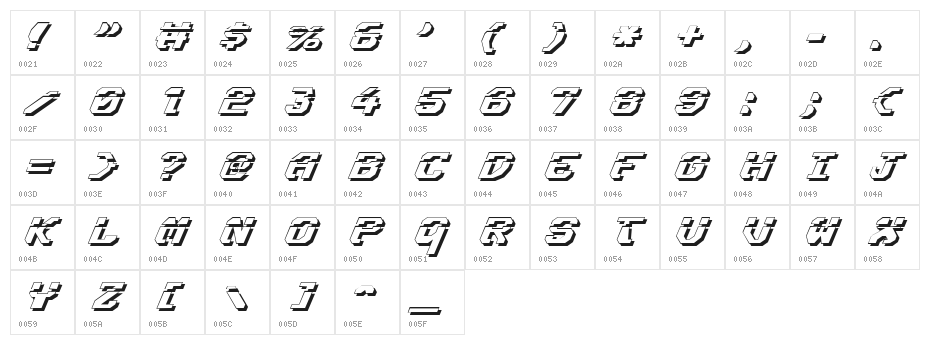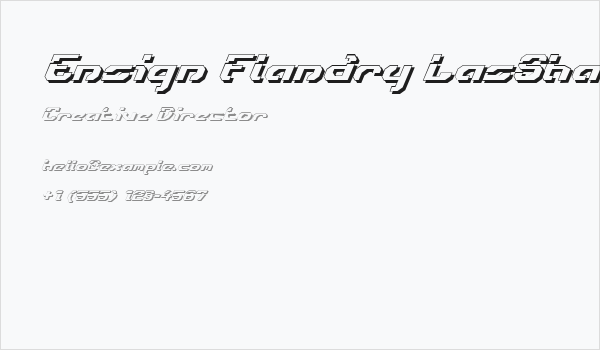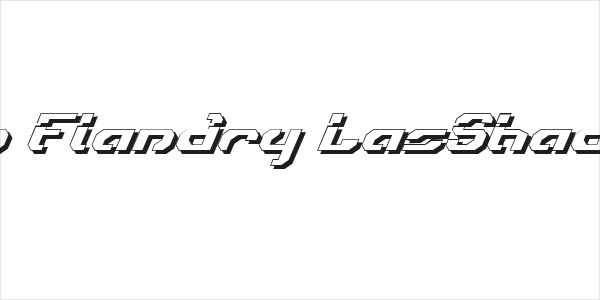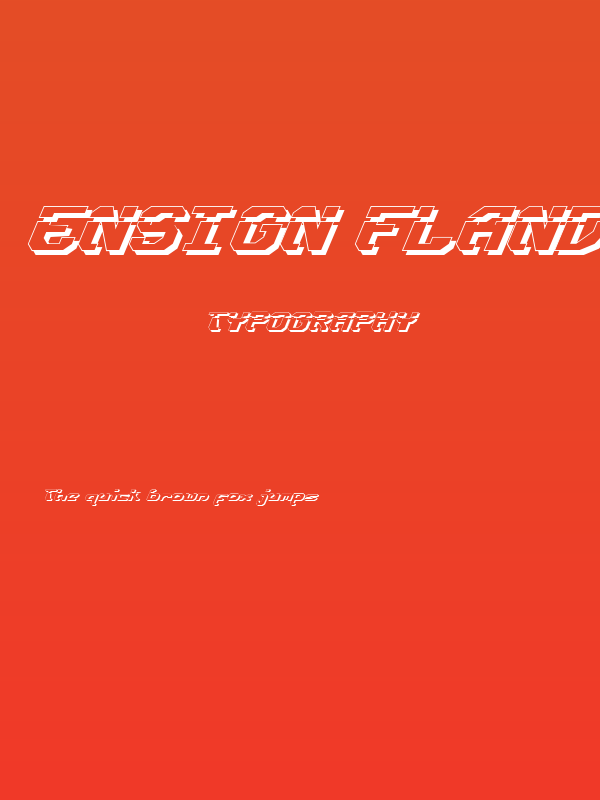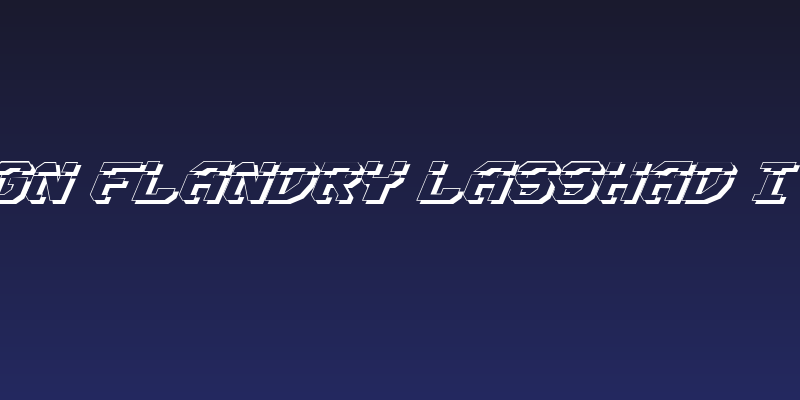
Ensign Flandry LasShad Italic Font
Ensign Flandry LasShad Italic Description
This font features a bold, italicized style with a distinct shadow effect that gives it a three-dimensional appearance. The characters are angular and geometric, with sharp edges and a futuristic look. The uppercase and lowercase letters maintain a consistent style, with the lowercase slightly smaller but equally bold. Numbers and special characters follow the same design principles, ensuring uniformity across all glyphs. The shadow effect adds depth, making the text appear as if it is raised off the page. This font is ideal for creating eye-catching headlines and titles.
| Proposed Projects | Perfect for futuristic designs, sci-fi themed projects, video game titles, and dynamic posters. |